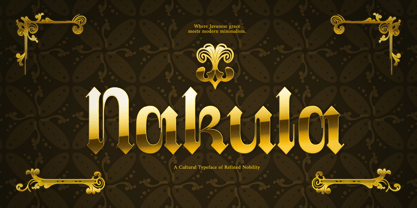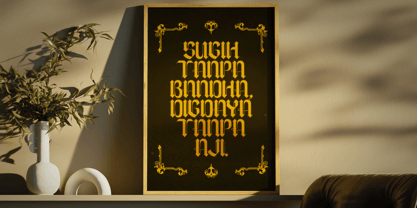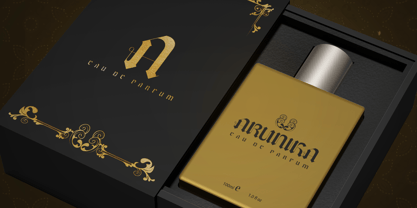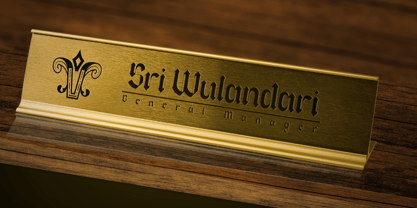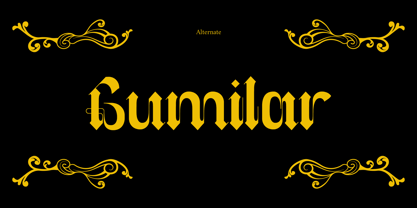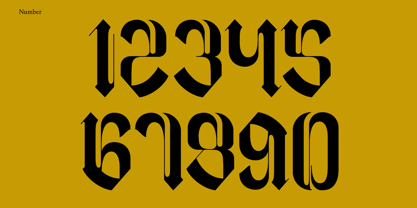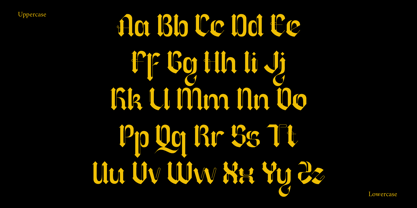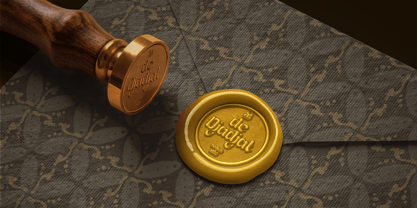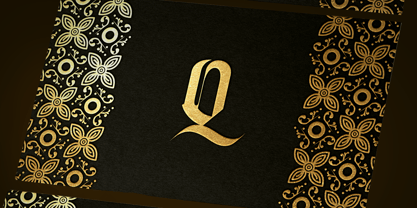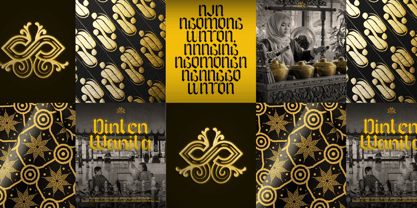
Nakula
by Inviline
The Nakula Font Family was designed by Virgiawan Listanto and published by Inviline. Nakula contains 1 styles. More about this family
Nakula is a cultural typeface that embodies the elegance of Javanese nobility fused with the structure of modern blackletter design. Inspired by traditional batik patterns and royal insignias, Nakula evokes a sense of luxury, heritage, and ceremonial grandeur. Its sharp edges and gold-like presence make it ideal for wedding invites, boutique branding, certificates, and prestige-focused titles. With high contrast strokes and ornamental details, this font adds a refined touch to cultural narratives and timeless storytelling. Nakula is where the grace of tradition meets the boldness of modern sophistication.
Designers: Virgiawan Listanto
Foundry: Inviline